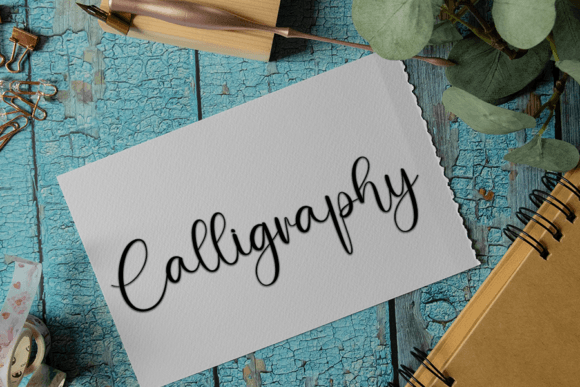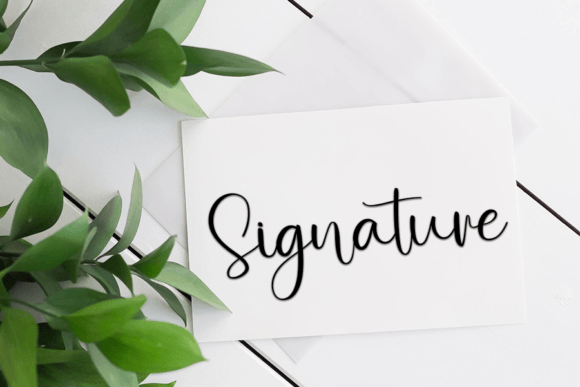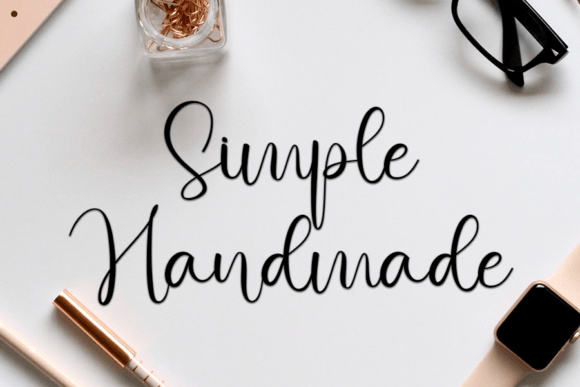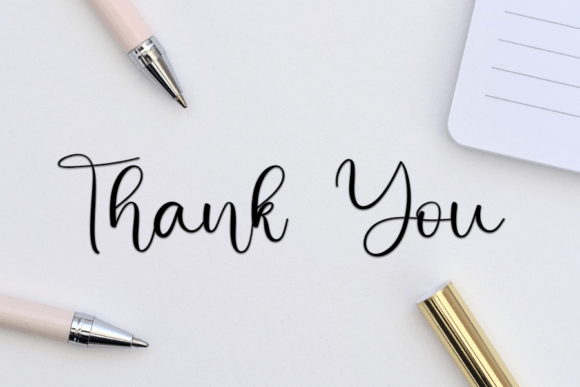
Introduction to Santun Font
Santun is a bold and beautiful script font.
Whether youโre using it for crafts, digital design, presentations, or creating greeting cards, this font has the potential to become your favorite font, whatever the occasion .
Key Features of Santun Font
Why Choose Santun Font?
Santun Font offers exceptional quality and versatility, making it a valuable addition to your design toolkit. Whether you’re creating for personal projects or commercial use, Santun Font delivers professional results.